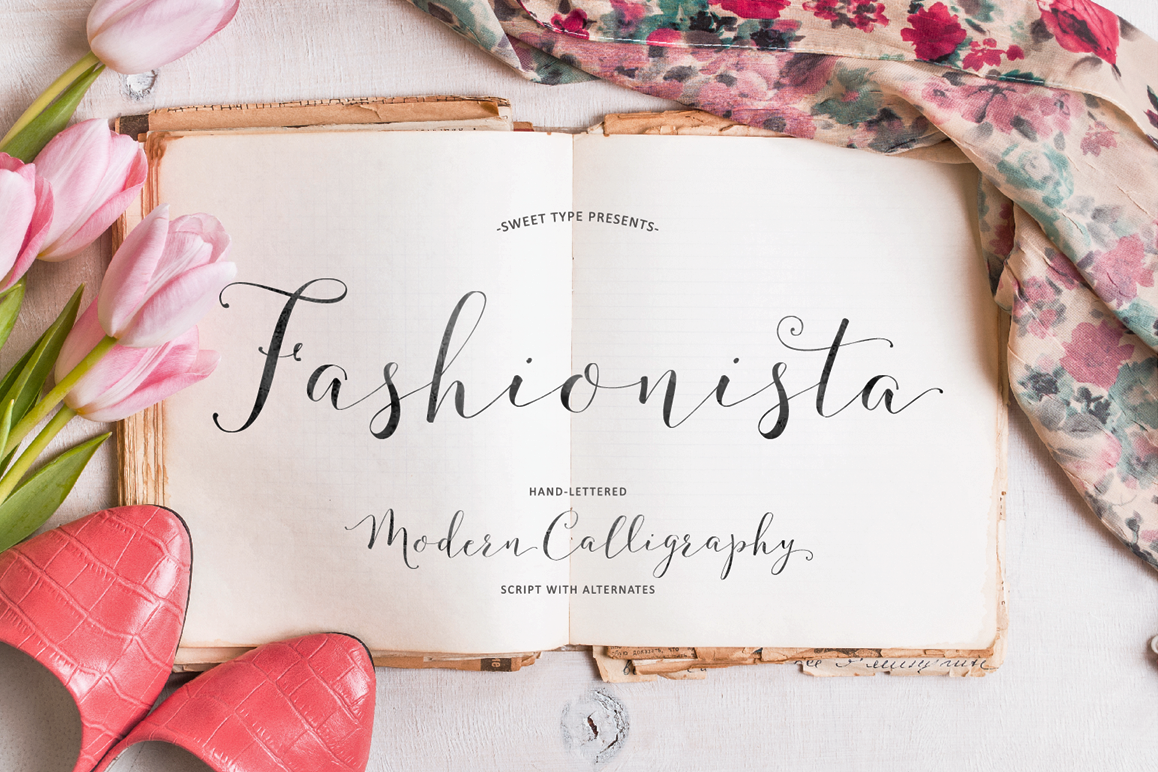
Fashionista
Contemporary and clean hand-lettered calligraphy style script.
This mix of modern and classic writing is soon to be your favorite for weddings, stationary, logos and more!
9 Lower-case styles
Additional Common Letter Combinations
Multi-lingual Glyphs
International and Special Punctuation
With hundreds of alternate letters, everything you create will be completely unique. And it's so much fun to create your own hand-lettered text styles. The combinations of sweet swirly letters are endless.